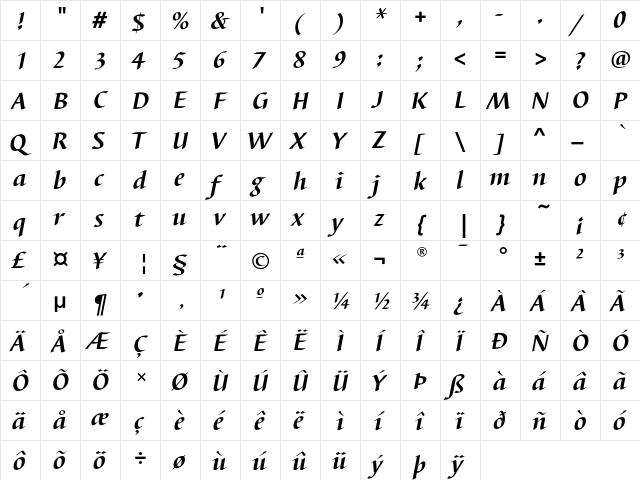
BarbedorEF BoldItalic Font Preview
BarbedorEF BoldItalic
BarbedorEF BoldItalic Font Details
Design Context for BarbedorEF Typeface
BarbedorEF is a composed and adaptable typeface that performs quietly and consistently across a wide range of design contexts. The dynamic lean of this cut emphasises speed and emphasis in any layout. The heavy weight commands attention and anchors typographic hierarchies.
Pro Tip: Try BarbedorEF for annotation and caption copy alongside an upright companion — the contrast in angle creates a dynamic but ordered typographic system.